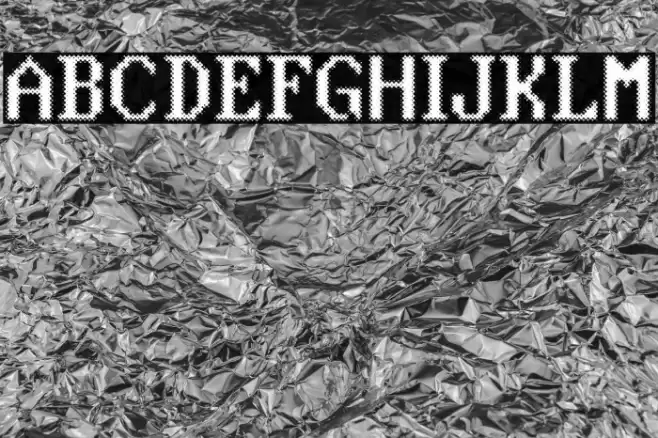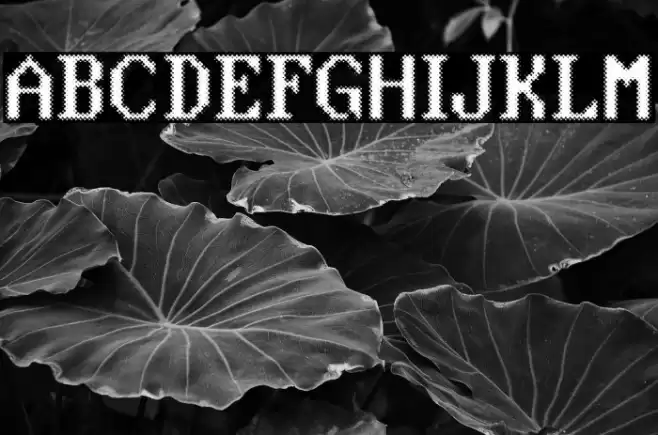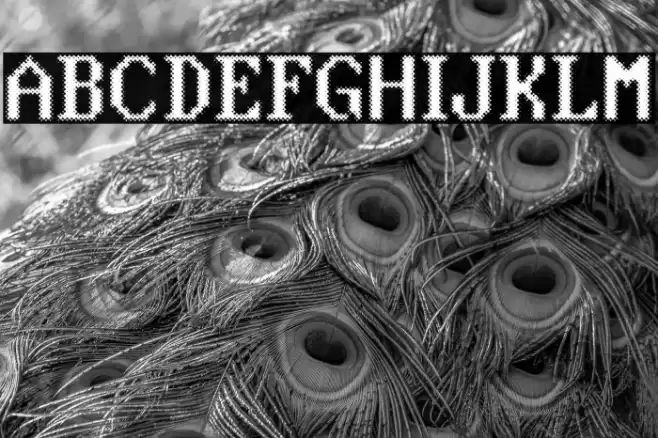
Blue Screen Personal Use Regular Font
Blue Screen Personal Use Regular Description
This font features a pixelated, retro style reminiscent of early computer graphics. Each character is composed of small, square blocks, giving it a distinct, digital appearance. The uppercase letters have a bold presence with sharp angles and a consistent height, while the lowercase letters maintain the same pixelated texture with a slightly more rounded form. The numerals and special characters follow the same design principles, ensuring uniformity across the font. This style evokes a sense of nostalgia for vintage computing and gaming, making it ideal for projects that aim to capture that era's aesthetic.
A pixelated, retro-style font inspired by early computer graphics from Uncategorized fonts.
- Proposed Projects: Ideal for retro-themed designs, video game graphics, digital art projects, and nostalgic branding.
- Overall Style: Vintage
- Use Case: Logos, Headlines, Digital Art